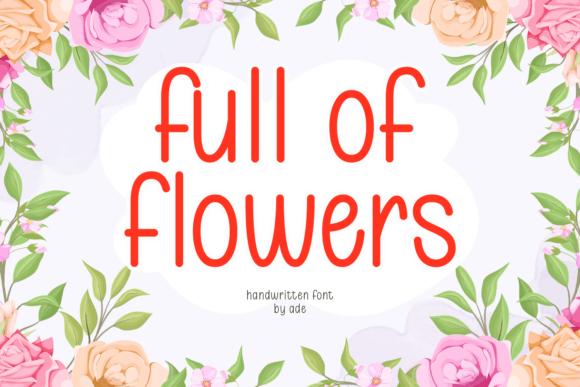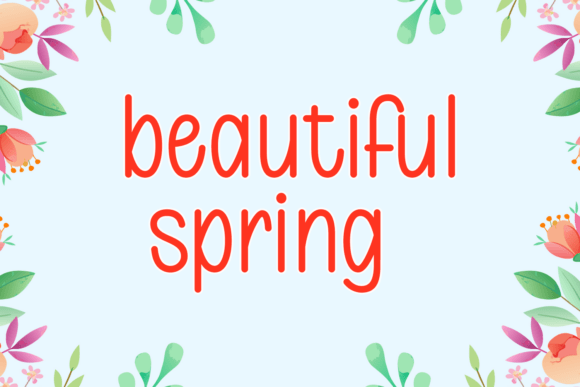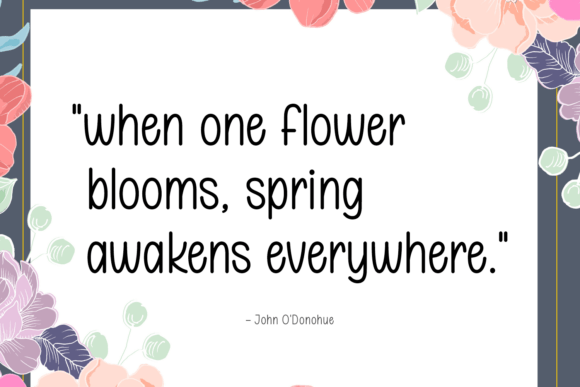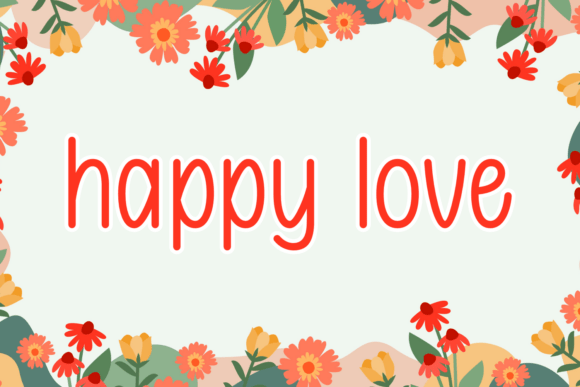
Full of Flowers Font: A Cute Handwritten Font for Spring & DIY Projects
About the Full of Flowers Font
Meet Full of Flowers Font, a stunning font that brings a touch of elegance and professionalism to any design. Full of Flowers is a charming and whimsical handwritten font with a smooth, rounded style that radiates warmth and joy. Its cheerful and casual lettering makes it perfect for greeting cards, invitations, branding, children’s books, and DIY projects. Whether you’re designing for spring, floral themes, or cozy crafts, this font brings a delightful touch of fun and elegance to your work!
Full of Flowers Font excels in display applications such as headlines, logos for boutiques or cafes, short-form social media content, and packaging for products targeting a younger demographic or emphasizing a handcrafted aesthetic. It’s less suitable for body text or lengthy paragraphs due to its informal, handwritten nature; readability suffers at smaller sizes.
Pairing it with a clean sans-serif like Lato or Open Sans provides a contemporary contrast, balancing the font’s whimsicality with a touch of professionalism. For a more vintage feel, a serif typeface like Playfair Display or Merriweather would complement its charming curves. Avoid pairing it with overly geometric or heavily condensed fonts, as this might clash with its organic style.
The font’s core personality is cheerful and approachable, making it ideal for brands that wish to project warmth and friendliness. Its inherent playfulness ensures a lighthearted tone, suitable for projects aiming for a sweet or nostalgic feel.
Full of Flowers Font Usage Examples
Full of Flowers Font Example